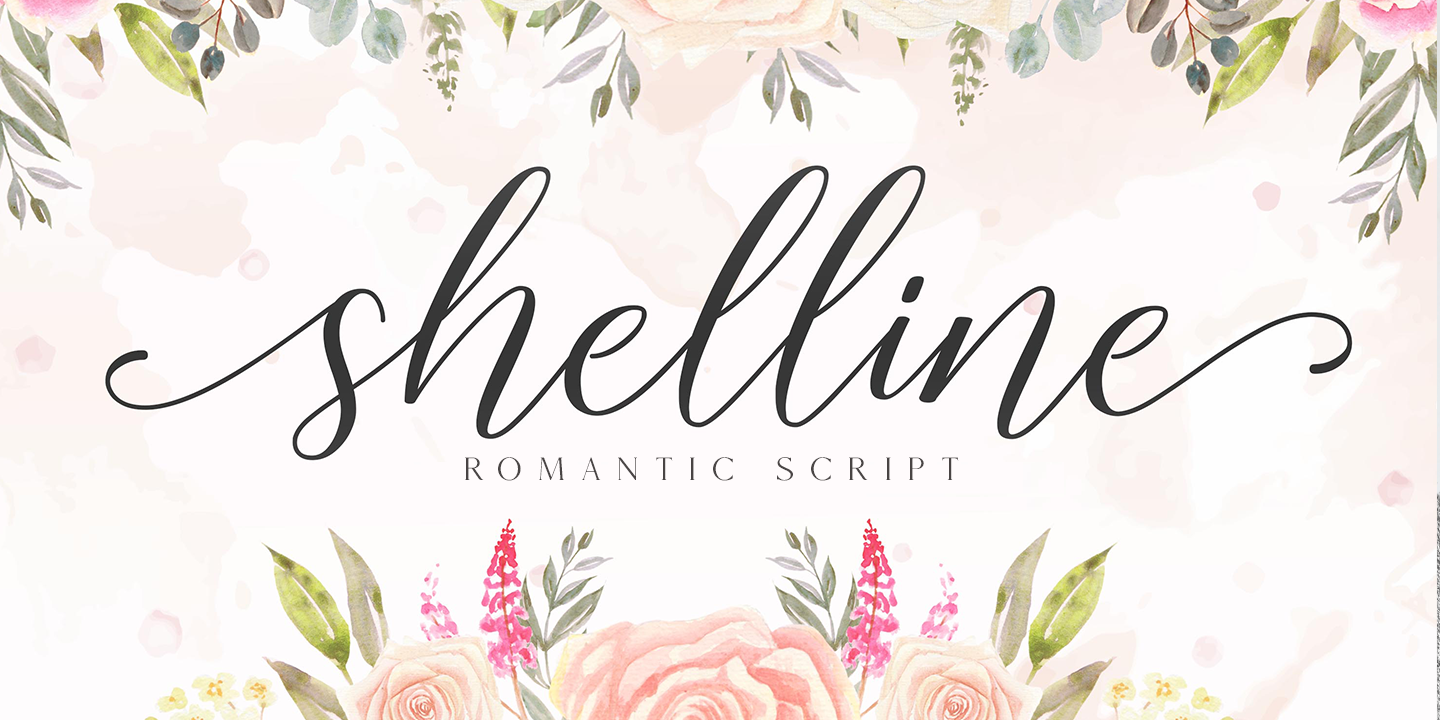
Shelline Font is perfect for various design applications including beach resort branding, coastal restaurant menus, ocean-themed wedding invitations, marine conservation campaigns, nautical home decor, seaside boutique logos, beach party invitations, maritime museum displays, coastal lifestyle magazines, and elegant script typography displays.
What makes Shelline Font so exciting is its coastal elegance and oceanic charm that captures the serene beauty of seashells and ocean waves through typography. The font features smooth, flowing letterforms with gentle curves and natural rhythm that evoke the peaceful atmosphere of seaside moments. Its graceful appearance and maritime sophistication make it ideal for projects requiring a coastal, relaxing aesthetic that transports audiences to tranquil beaches and creates memorable oceanic brand experiences.
This captivating typeface stands out in the competitive font market due to its exceptional coastal appeal and oceanic elegance. Whether you're creating beach resort identities, marine-themed wedding materials, or seaside boutique branding, Shelline Font Free Download delivers the perfect balance of sophistication and coastal charm. The font's beautifully crafted letterforms ensure excellent performance across both digital and print media, making it an essential addition to any designer's coastal typography collection. Its unique character set supports various design contexts while maintaining consistent oceanic quality throughout different applications and maritime creative projects.